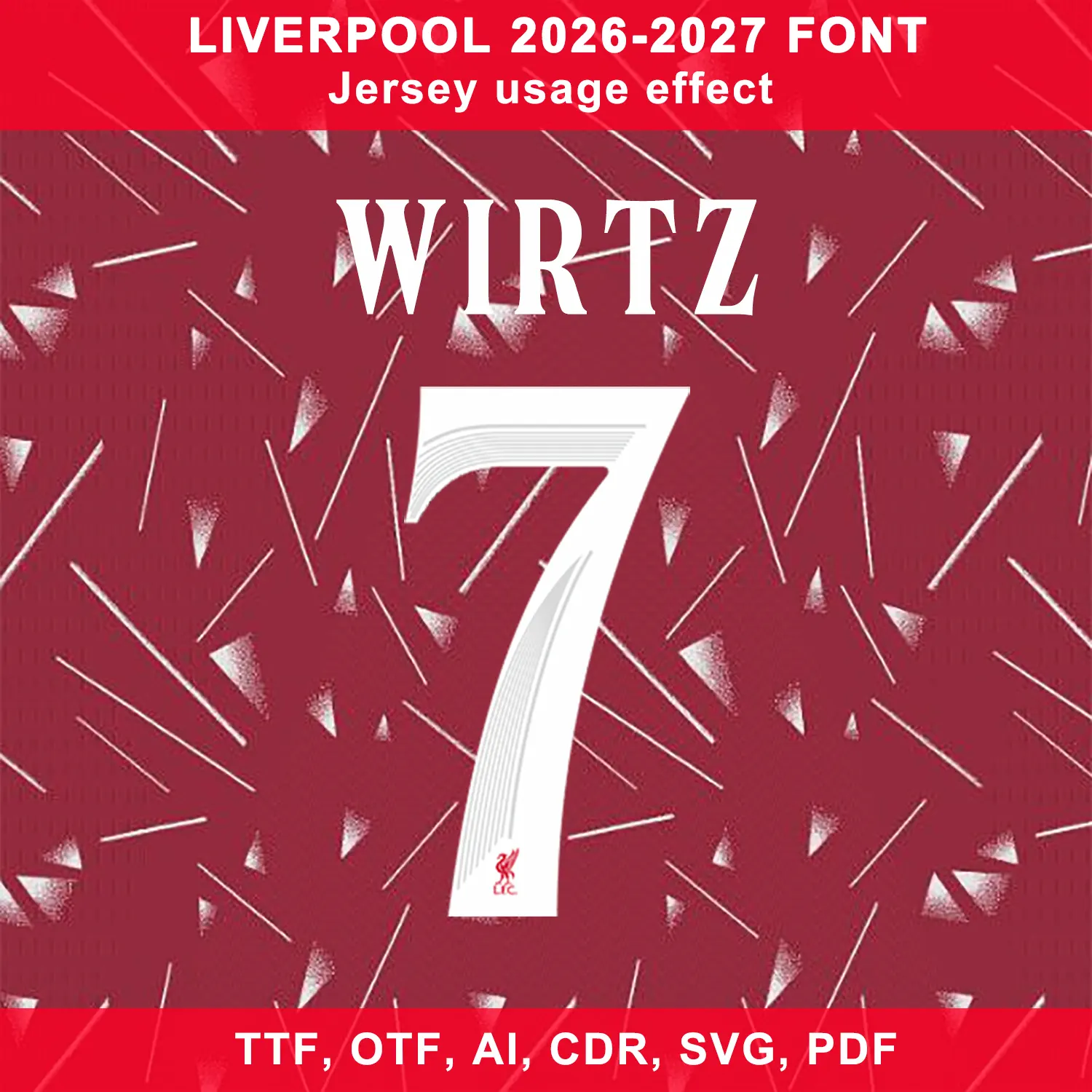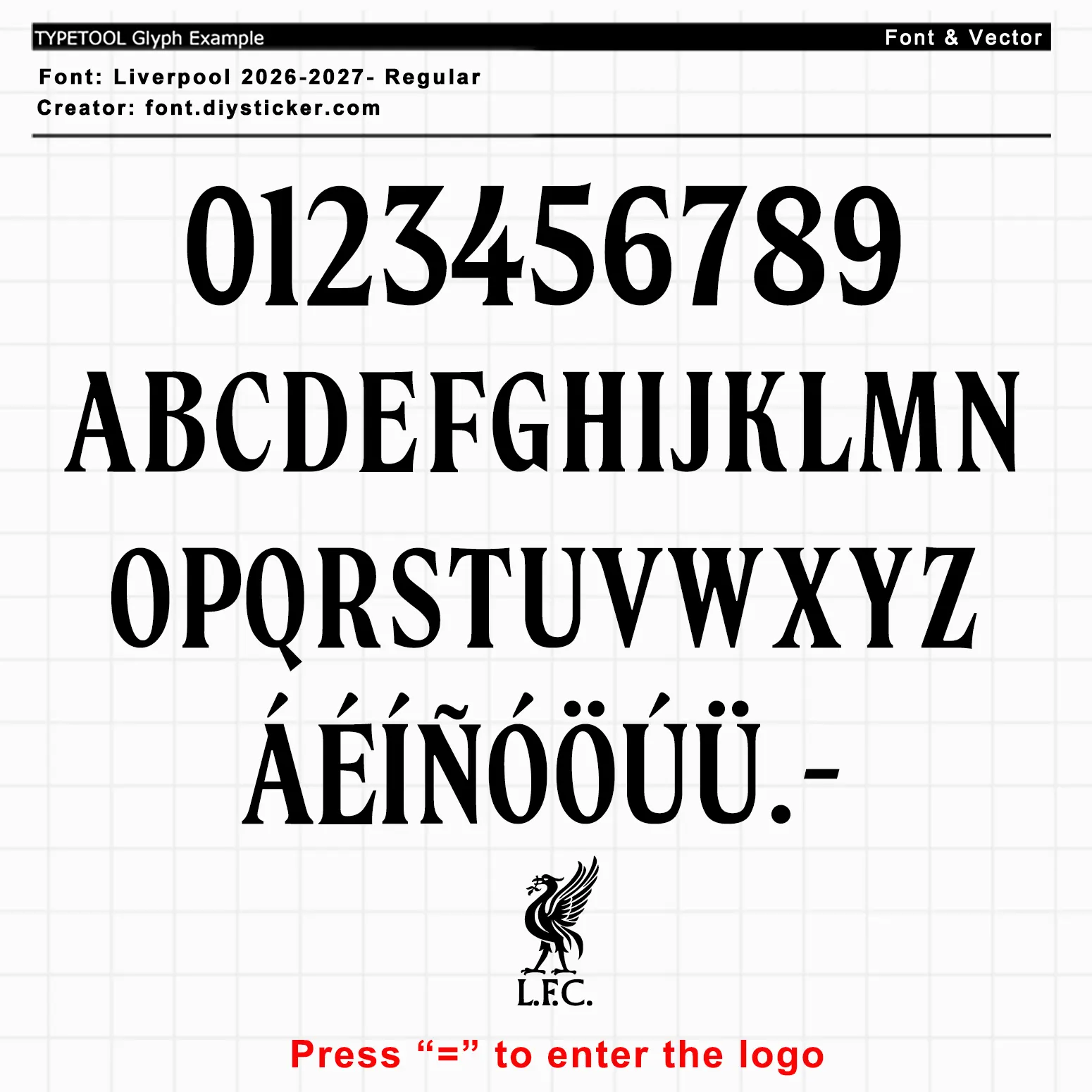
1. Premium Liverpool Font Kit 2026/2027 for Kit Restoration & Typography Design
Are you looking to recreate or restore the upcoming season’s historical jerseys? Our Liverpool Font Kit 2026/2027 premium vector pack is meticulously crafted to match the exact dimensions, spacing, and geometric styling of the official club namesets. Whether you are a digital merchant, jersey collector, or sports graphic designer, this comprehensive typography kit provides everything you need for high-quality production. Utilizing the Liverpool Font Kit 2026/2027 ensures that your DIY apparel projects, heat transfer vinyl prints, and custom merchandise achieve a flawless, retail-grade finish.
- Club Details: High-fidelity reproduction of the iconic Liverbird crest nested inside the bottom curve of the Liverpool Font Kit 2026/2027 numbers.